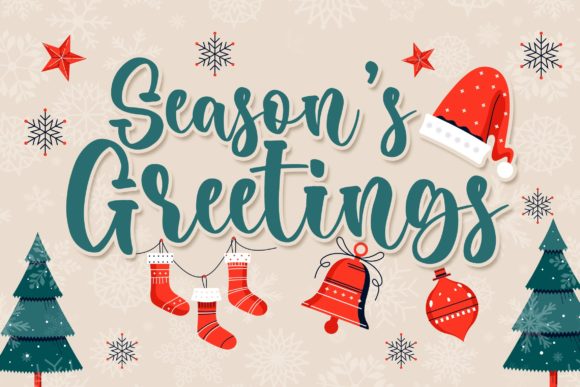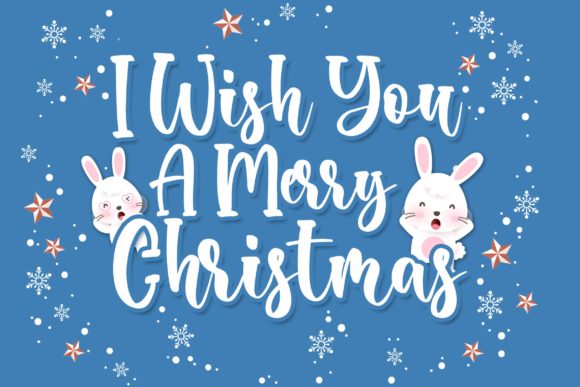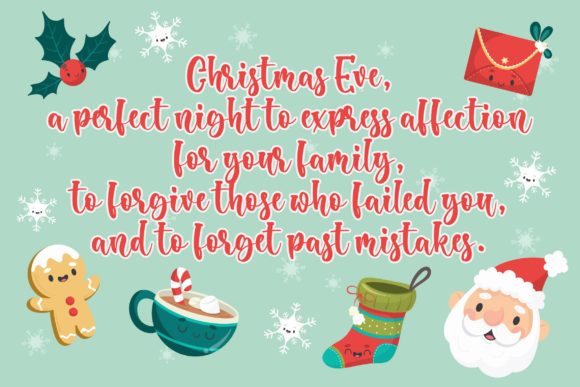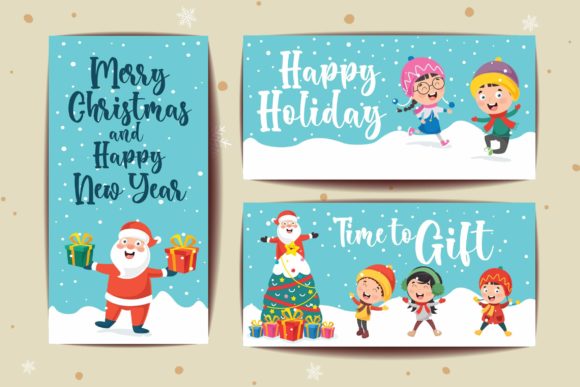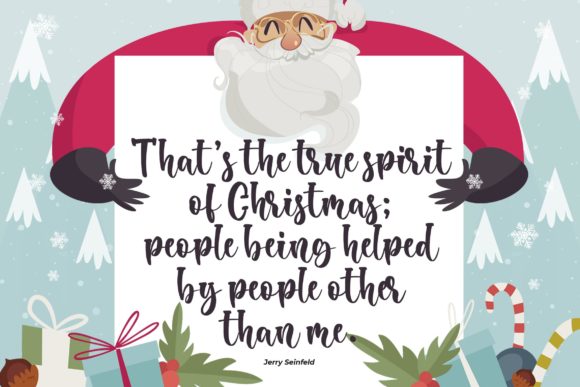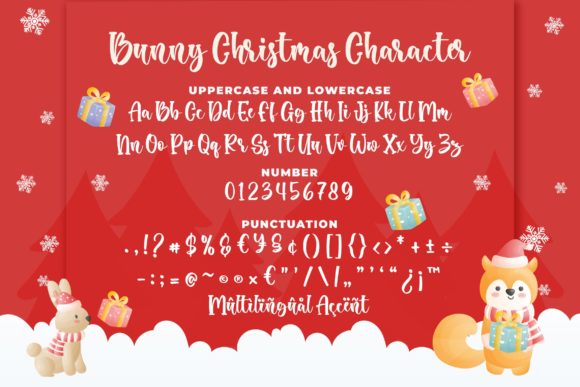
Deck the Halls with Joy and Whimsy: Introducing Bunny Christmas Font
As a designer, there’s no feeling quite like the thrill of the holiday season. The twinkling lights, the festive music, and the joyous atmosphere all come together to spark creativity and inspire new ideas. And what’s more magical than a handwritten font that captures the essence of Christmas in all its whimsical glory?
Enter Bunny Christmas Font, a sweet and festive handwritten font that’s perfect for adding a personalized touch to your designs. Whether you’re creating wedding invitations, cards, or any other project that needs a dash of holiday cheer, this font is sure to bring a smile to your clients’ faces. With its playful, handwritten style, Bunny Christmas Font is a valuable addition to any designer’s toolkit.
Bunny Christmas Font Key Features
- Unique Characteristics: Whimsical, playful, and festive design elements, including bunny and Christmas-themed ornaments, making it perfect for holiday-themed designs.
- Font Style: A mix of script and sans-serif font styles, creating a unique and eye-catching visual effect.
Bunny Christmas Font Review
Overall, I think the Bunny Christmas Font is a great addition to any holiday design project. ✨ Its whimsical and playful feel captures the magic of Christmas perfectly.
- Unique and festive design that’s perfect for Christmas-themed projects
- Well-suited for both digital and print applications
- Includes a range of characters, including uppercase and lowercase letters, numbers, and punctuation
The font’s playful feel is achieved through its use of rounded shapes and elegant lines. The characters are also well-designed, making it easy to read and use in your designs.
- May not be suitable for formal or professional designs due to its playful nature
- Some characters may be difficult to read at small font sizes
- No bold or italic font styles available
Despite these limitations, I think the Bunny Christmas Font is a great choice for designers looking to add a touch of holiday magic to their projects. ✨
The Bunny Christmas Font is perfect for holiday-themed projects, such as Christmas cards, gift tags, and social media posts. It can also be used for other festive occasions like Easter and Halloween.
To get the most out of the Bunny Christmas Font, use it in combination with other festive elements like holly leaves, snowflakes, and candy canes. Experiment with different font sizes, colors, and styles to create unique and eye-catching designs.